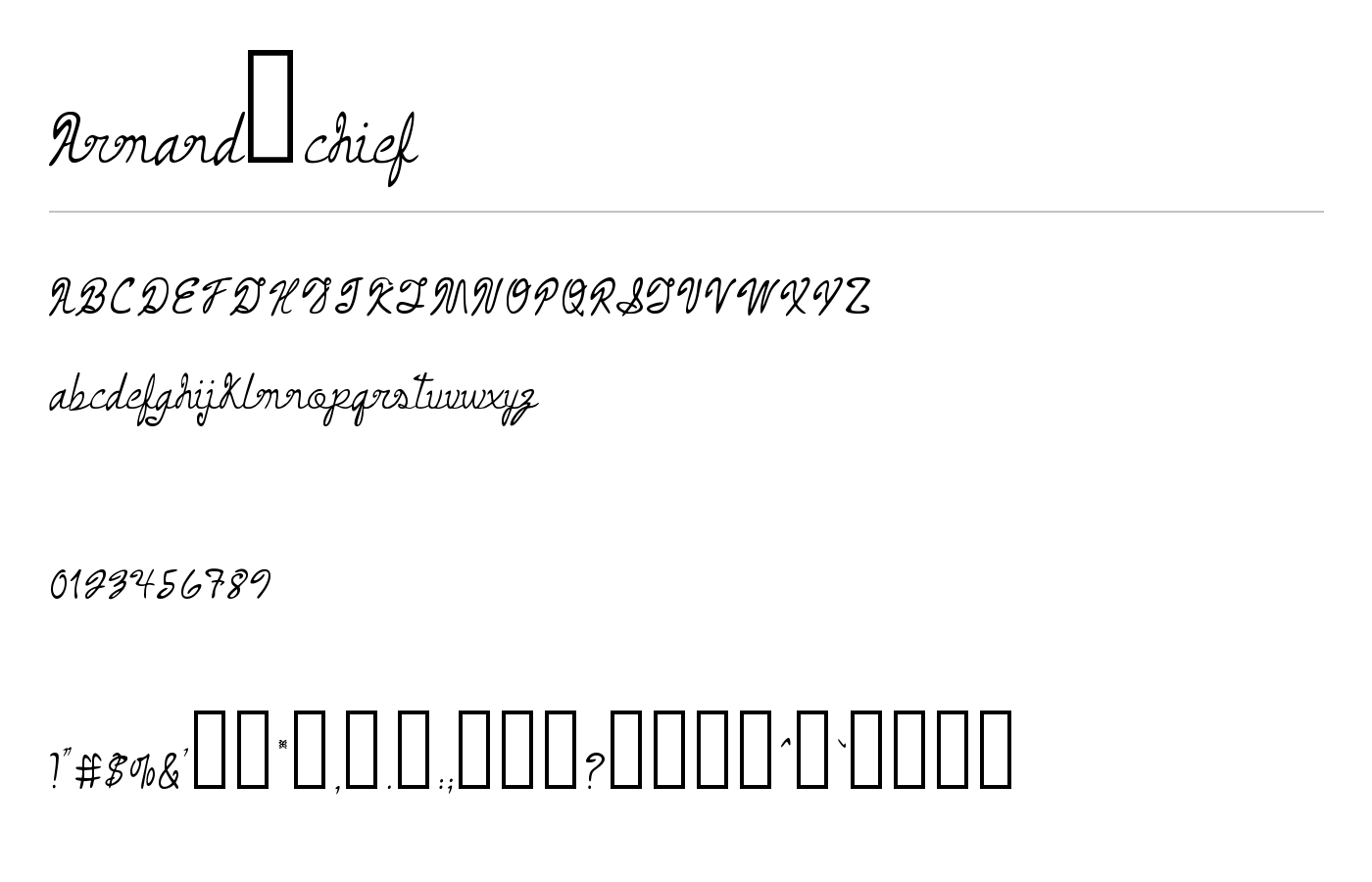
Armand_chief is an elegant script font with a delicate, flowing style that mimics natural handwriting. Its light weight and smooth, slightly narrow letterforms convey a refined, graceful personality, making it ideal for invitations, branding, and stylish editorial projects where a personal yet sophisticated touch is desired.
Armand_chief Font
About Armand_chief Font